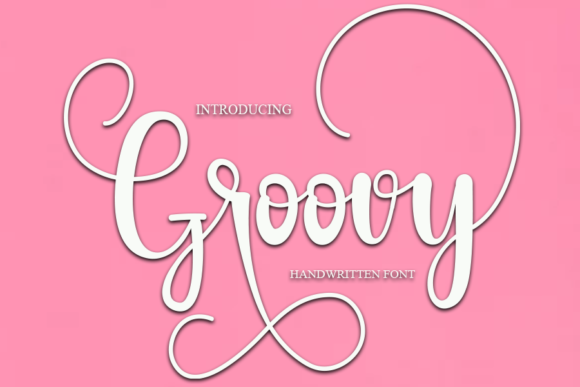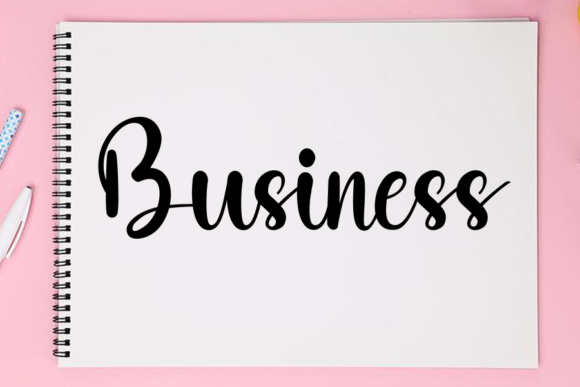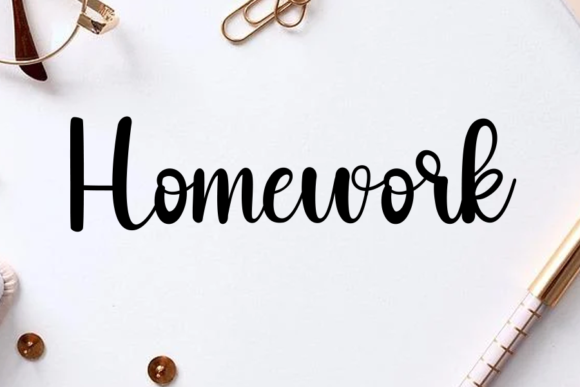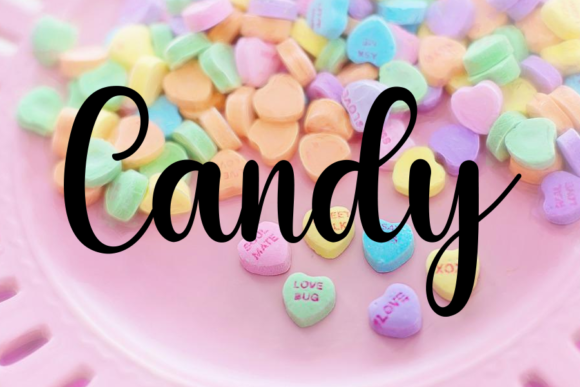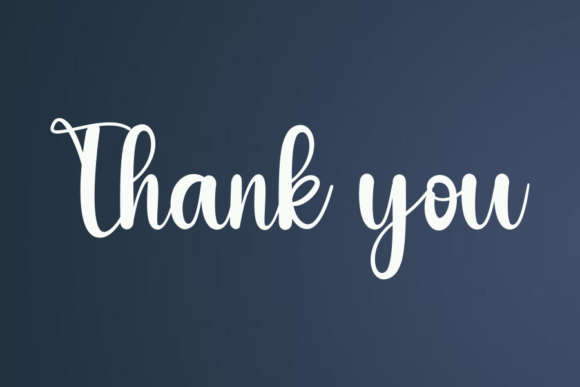
Groovy Font
About Groovy Font
“Groovy” is described as a sweet, romantic, and beautiful script font adorned with chic curves in each letter. Additionally, the font is PUA coded, providing easy access to all the glyphs and swashes for seamless customization.
The charming and romantic qualities of “Groovy” make it a versatile choice for projects that require an elegant and sophisticated touch. The chic curves in each letter contribute to the overall visual appeal, creating a flowing and graceful script that adds delicacy and refinement to the text.
The PUA coding in “Groovy” is a notable feature, allowing users to effortlessly access all available glyphs and swashes. This coding system enhances the font’s versatility, enabling designers to personalize and customize their projects with ease. Whether you’re working on wedding invitations, romantic quotes, or any creative endeavor that demands an expressive script, the PUA coding in “Groovy” proves to be a valuable asset.
Beyond its romantic undertones, “Groovy” adapts well to various design contexts, making it suitable for branding projects, social media graphics, and more. The font’s ability to maintain readability while exuding a romantic and beautiful aesthetic enhances its versatility.
In the hands of a designer, “Groovy” becomes a tool for visual storytelling. Its sweet and romantic nature can evoke emotions, making it an ideal choice for conveying love, joy, or any sentiment that aligns with a graceful script. The chic curves in each letter create a harmonious flow, ensuring that the font not only looks beautiful but also reads well.
In conclusion, “Groovy” emerges as more than just a script font; it is a visual storyteller. Its sweet, romantic, and beautiful design, complemented by PUA coding, positions it as a versatile and powerful asset for designers seeking to infuse their projects with elegance and charm. Whether employed in wedding materials, quotes, or various creative applications, “Groovy” adds a distinctive and refined touch that enhances the overall visual experience.